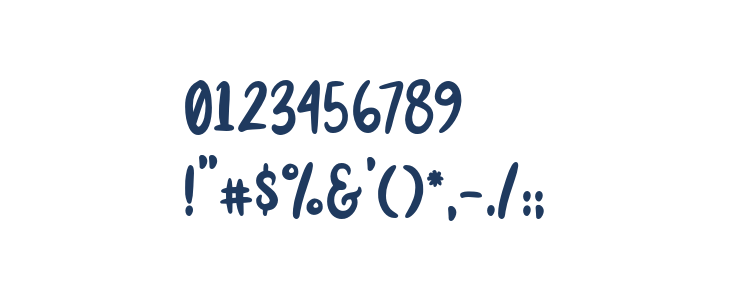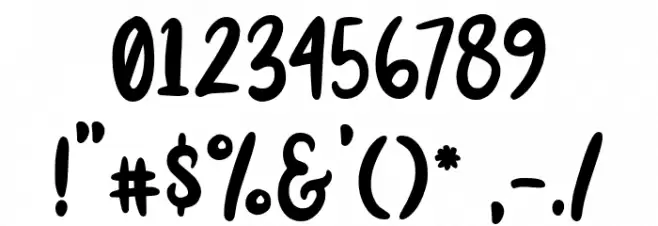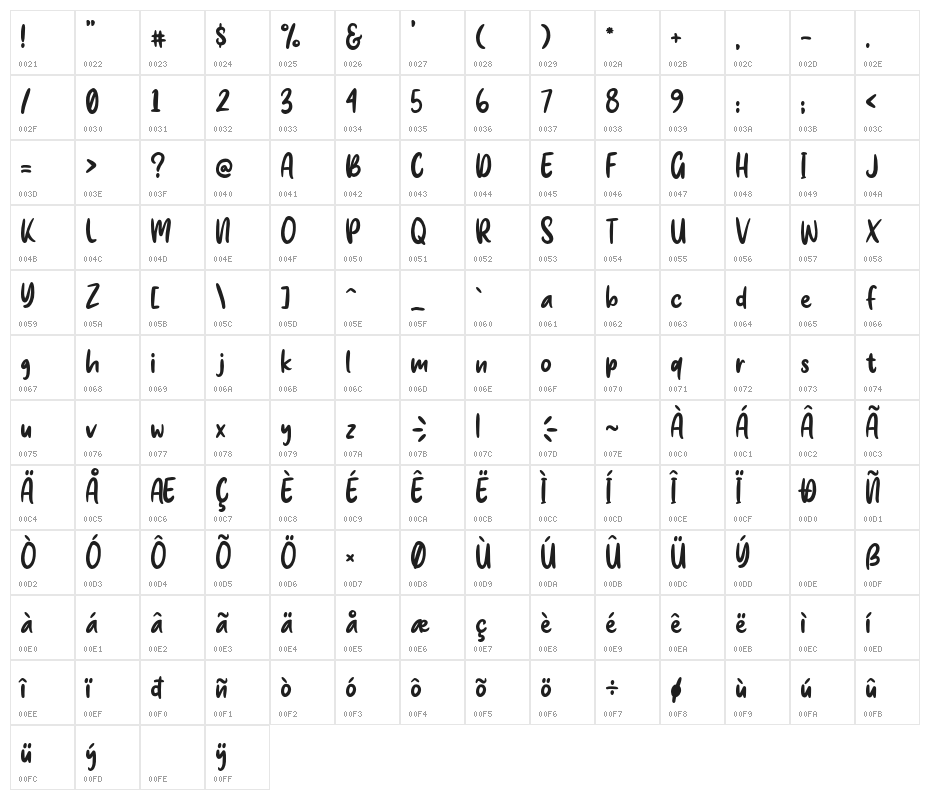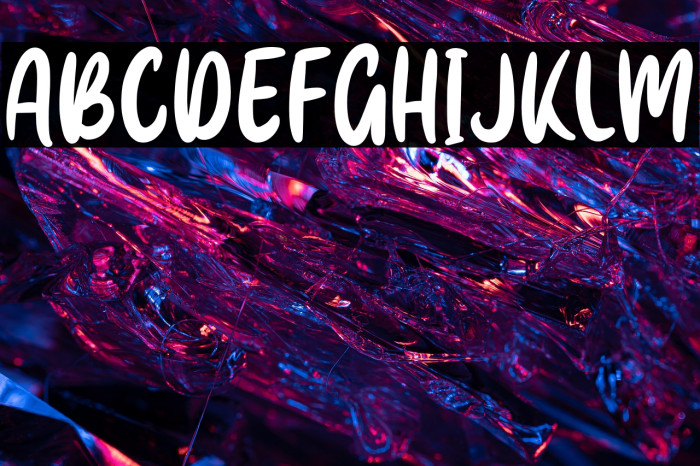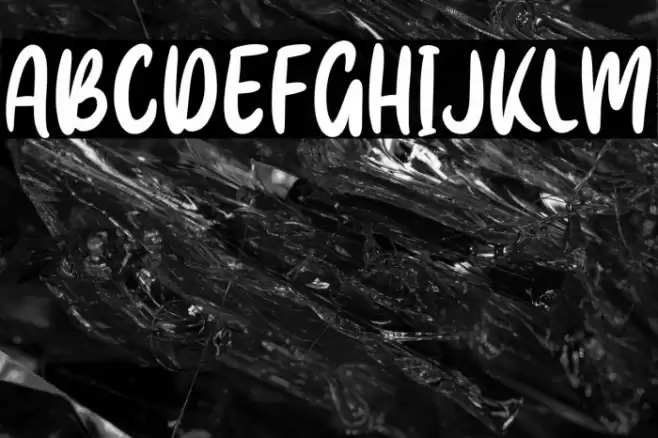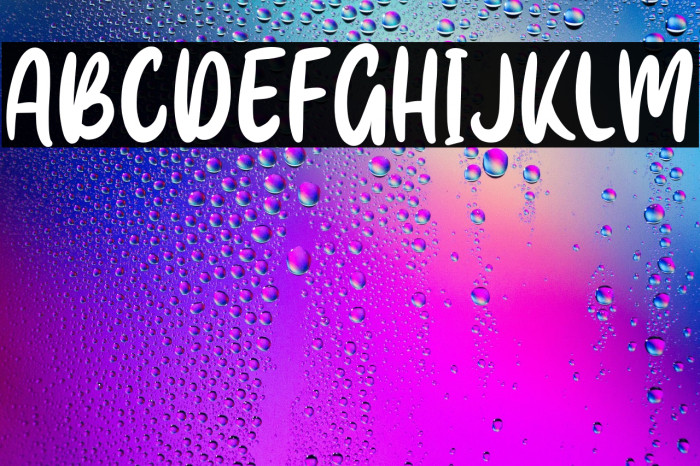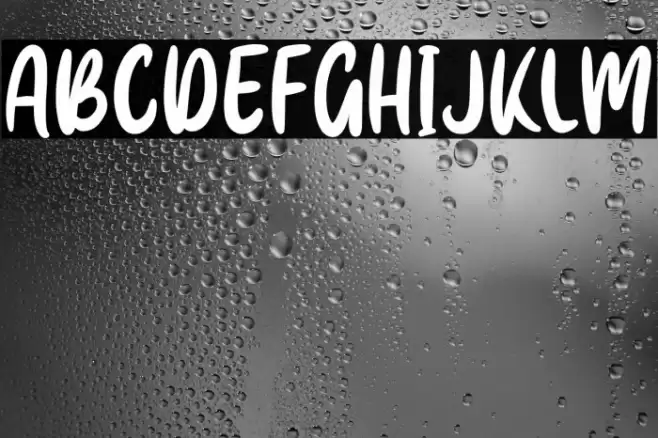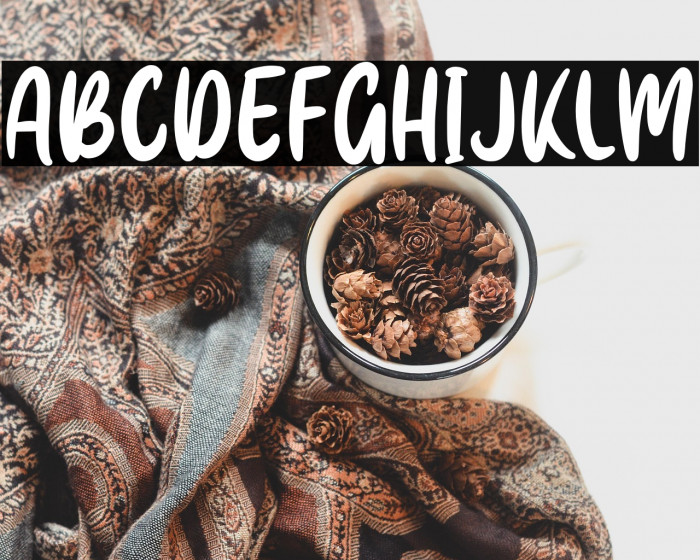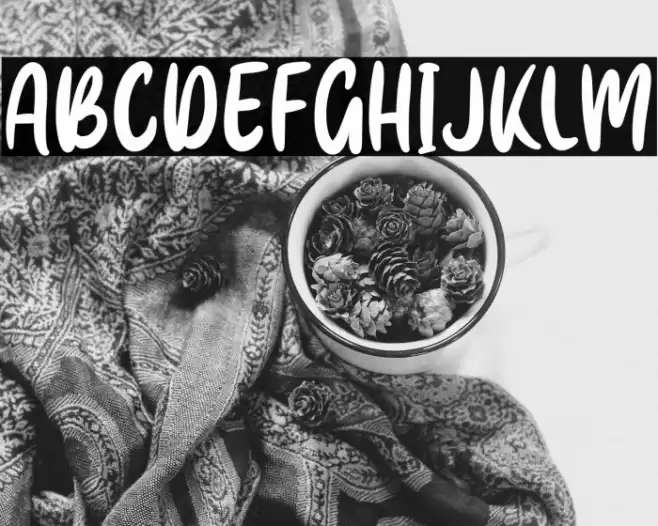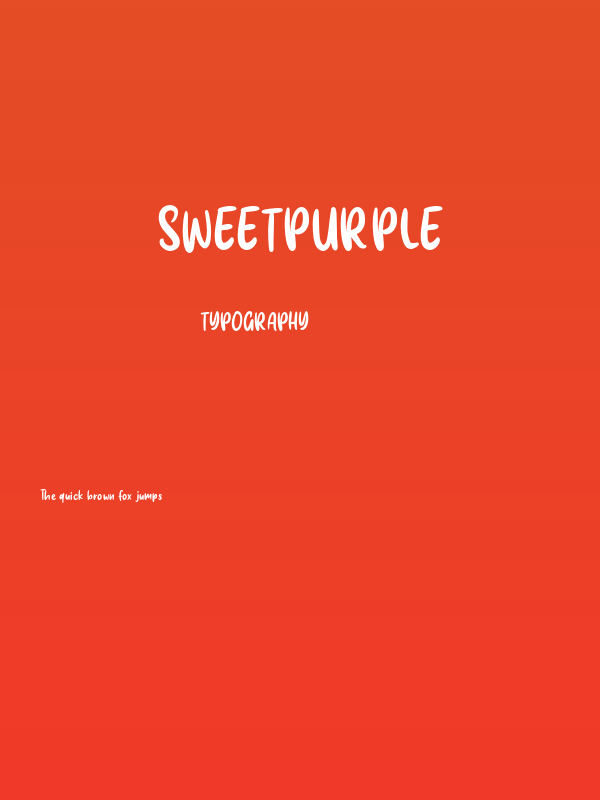
sweetpurple Font
sweetpurple Description
This font features a playful and bold handwritten style, characterized by its smooth and rounded letterforms. The strokes are consistent in width, giving it a uniform appearance that is both friendly and approachable. The uppercase letters are slightly taller than the lowercase, maintaining a balanced and cohesive look. The numbers and special characters are designed to match the overall style, ensuring versatility across different uses. Its informal and casual nature makes it ideal for projects that require a personal touch.
| Use Case | Headlines, Logos, Social Media |
| Proposed Projects | Ideal for greeting cards, children's books, playful branding, and social media graphics. |